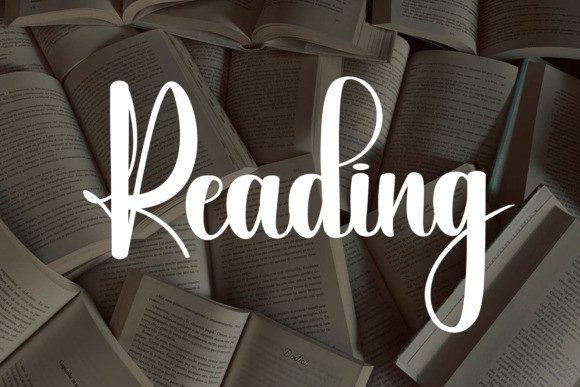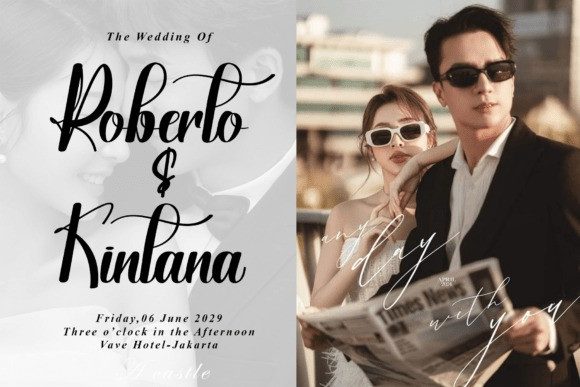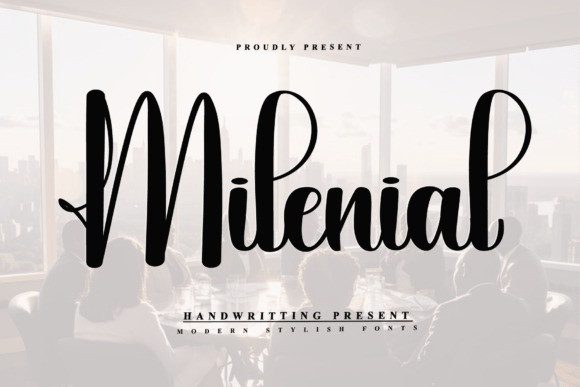
Milenial Script Font
Milenial Font is a sleek and modern script font with a touch of elegance and personality.Its smooth, flowing curves and stylish handwritten form make it an ideal choice for branding, social media graphics, wedding designs, and trendy product packaging. Whether you’re crafting a feminine logo or a classy invitation, Milenial delivers sophistication with a modern twist.